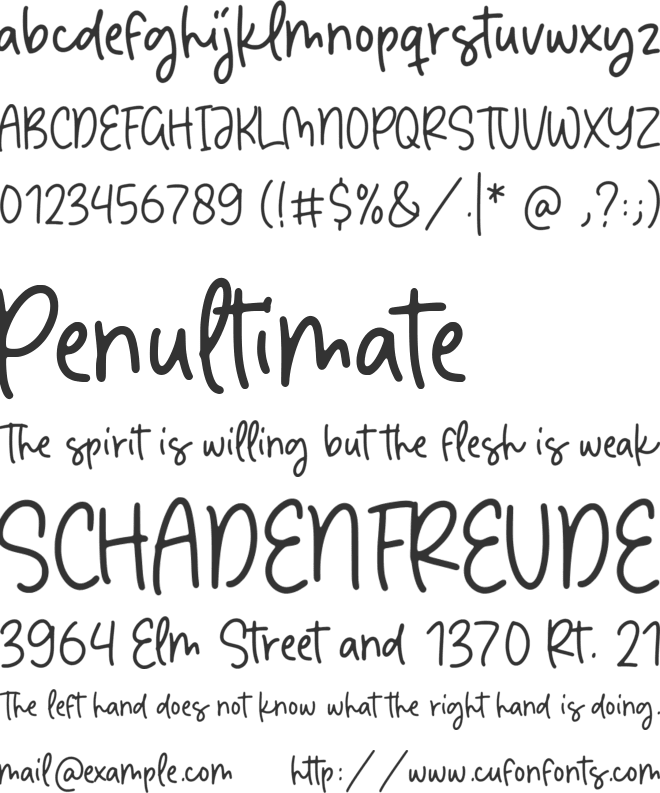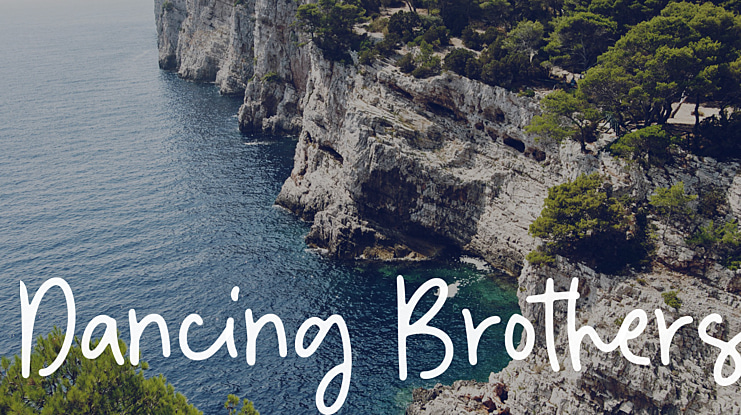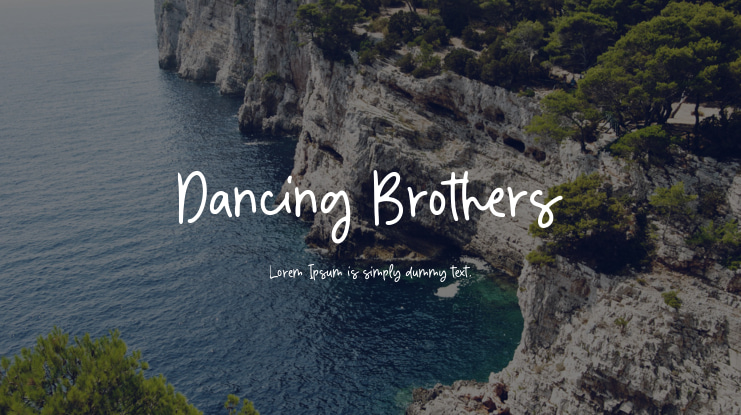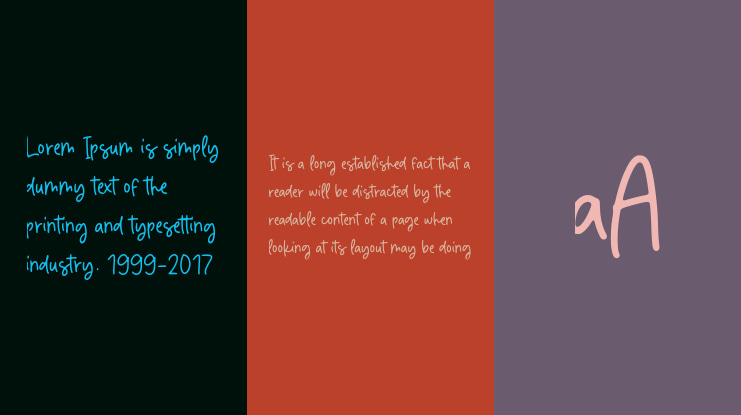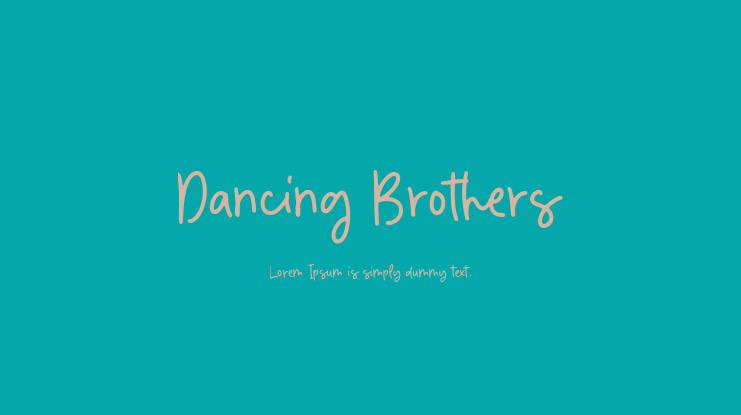
Dancing Brothers Font
Introducing Dancing Brothers by Balpirick Studio.
Dancing Brothers is a hand-drawn font that exudes cleanliness, elegance, and versatility, making it the ideal choice for a variety of design projects. Its effortlessly smooth lines and timeless sophistication deliver a modern look with universal appeal.
Crafted with meticulous precision and care, this font can be effortlessly utilized in various design projects, including logos, branding, invitations, packaging, and more. Its simple yet refined aesthetic is certain to leave a lasting impact on all who encounter it.
- Multilingual support for additional versatility